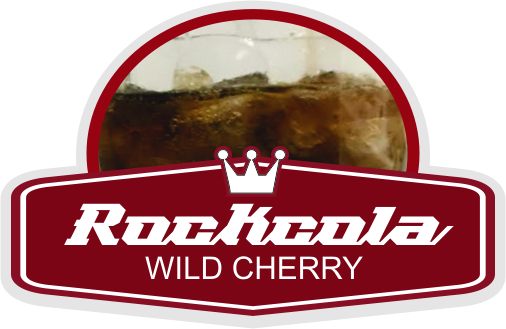
Wow! Superb slab serif face that also qualifies as connected script. Some connections - especially at the end of words - are superfluous. I don't see any other solution, but having a separate font without connections, and merging the two fonts in OpenType format. Or having an army of ligatures. Great design, and beautiful demo. 10/10
You've thrown out real good stuff so far. I'm pretty close to Fordo opinion about this, because its connection issues can be frustrating for people not using design apps aswe usually do. Maybe theres some finetunig in letterspace necessary... just to avoid the worst
Wow! Superb slab serif face that also qualifies as connected script. Some connections - especially at the end of words - are superfluous. I don't see any other solution, but having a separate font without connections, and merging the two fonts in OpenType format. Or having an army of ligatures. Great design, and beautiful demo. 10/10
You've thrown out real good stuff so far. I'm pretty close to Fordo opinion about this, because its connection issues can be frustrating for people not using design apps aswe usually do. Maybe theres some finetunig in letterspace necessary... just to avoid the worst
After a closer look... i guess i couldnt have made it better :/
T is too Upsilon-y
ok
So Cool